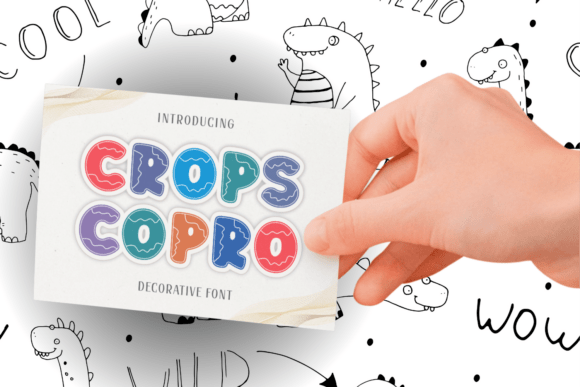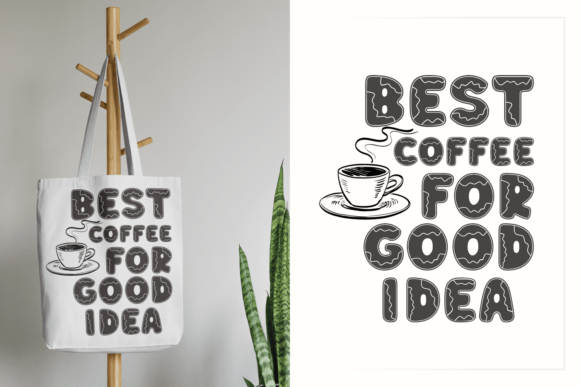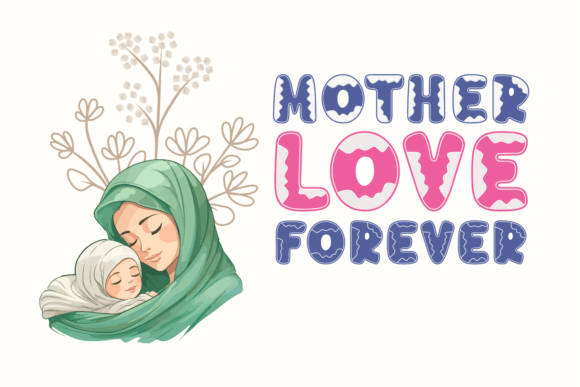
Crops Copro Font: Elevate Your Designs with a Bold and Whimsical Touch
Are you tired of using the same old fonts for your creative projects? Look no further! Introducing Crops Copro Font, a remarkably bold and contemporary font that exudes uniqueness and whimsy. This delightful display font is primed to complement an extensive range of projects, and we’re excited to show you how it can effortlessly elevate the distinctiveness of your creative endeavors.
The Quintessence of a Delightful Display Font
Crops Copro Font epitomizes the quintessence of a delightful display font, making it ideal for brightening up logos, magazines, posters, book covers, banners, and a multitude of other creations. Its bold and whimsical design is sure to grab attention and leave a lasting impression on your audience. Whether you’re a designer, crafter, or DIY enthusiast, this font is perfect for anyone looking to add a touch of personality to their work.
Unleash Your Artistic Potential
By integrating Crops Copro Font into your designs, you’ll be able to unleash your artistic potential and transform ordinary designs into endearing visual masterpieces. This font is designed to be versatile and adaptable, making it suitable for a wide range of applications. From branding and advertising to packaging and editorial design, Crops Copro Font is the perfect choice for anyone looking to add a unique and creative touch to their work.
Key Features of Crops Copro Font
- Bold and Contemporary Design: Crops Copro Font boasts a bold and contemporary design that’s sure to make your designs stand out.
- Whimsical and Unique: This font’s whimsical and unique design makes it perfect for adding a touch of personality to your work.
- Versatile and Adaptable: Crops Copro Font is designed to be versatile and adaptable, making it suitable for a wide range of applications.
Crops Copro Font is perfect for a wide range of projects, including:
- Logos and Branding: Use Crops Copro Font to create a bold and memorable logo that reflects your brand’s personality.
- Magazines and Editorials: Add a touch of whimsy and personality to your magazine and editorial designs with Crops Copro Font.
- Posters and Flyers: Create eye-catching posters and flyers with Crops Copro Font that are sure to grab attention.
- Book Covers and Packaging: Use Crops Copro Font to create bold and eye-catching book covers and packaging designs.
- Banners and Signage: Add a touch of personality to your banners and signage with Crops Copro Font.
Transform Your Designs with Crops Copro Font
By incorporating Crops Copro Font into your designs, you’ll be able to transform ordinary designs into endearing visual masterpieces. This font is designed to help you:
- Stand Out from the Crowd: Crops Copro Font is sure to make your designs stand out from the crowd and leave a lasting impression on your audience.
- Add Personality to Your Work: This font’s whimsical and unique design makes it perfect for adding a touch of personality to your work.
- Elevate Your Brand: Use Crops Copro Font to elevate your brand and create a bold and memorable visual identity.
In conclusion, Crops Copro Font is a remarkably bold and contemporary font that’s perfect for designers, crafters, and DIY enthusiasts looking to add a touch of personality to their work. With its whimsical and unique design, versatility, and ease of use, this font is sure to elevate the distinctiveness of your creative endeavors and transform ordinary designs into endearing visual masterpieces.